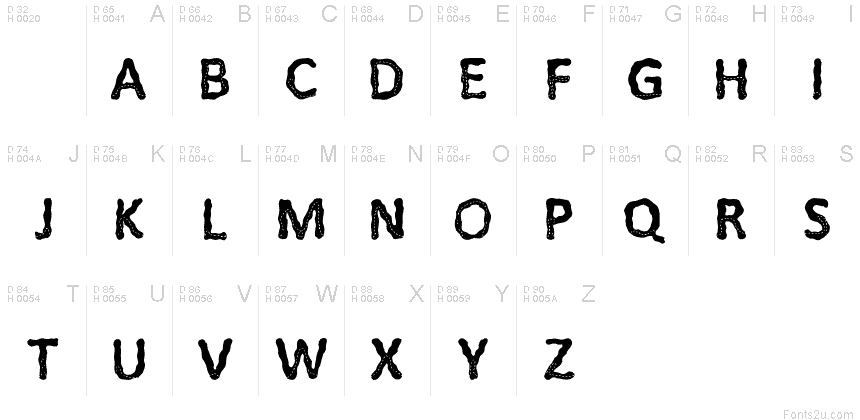
Lost in the Fo'nt'rest Caps
Worn trail, map trail style font designed for a project at uni. no numbers only A-Z in caps, two weights of font, BOLD and ROMAN